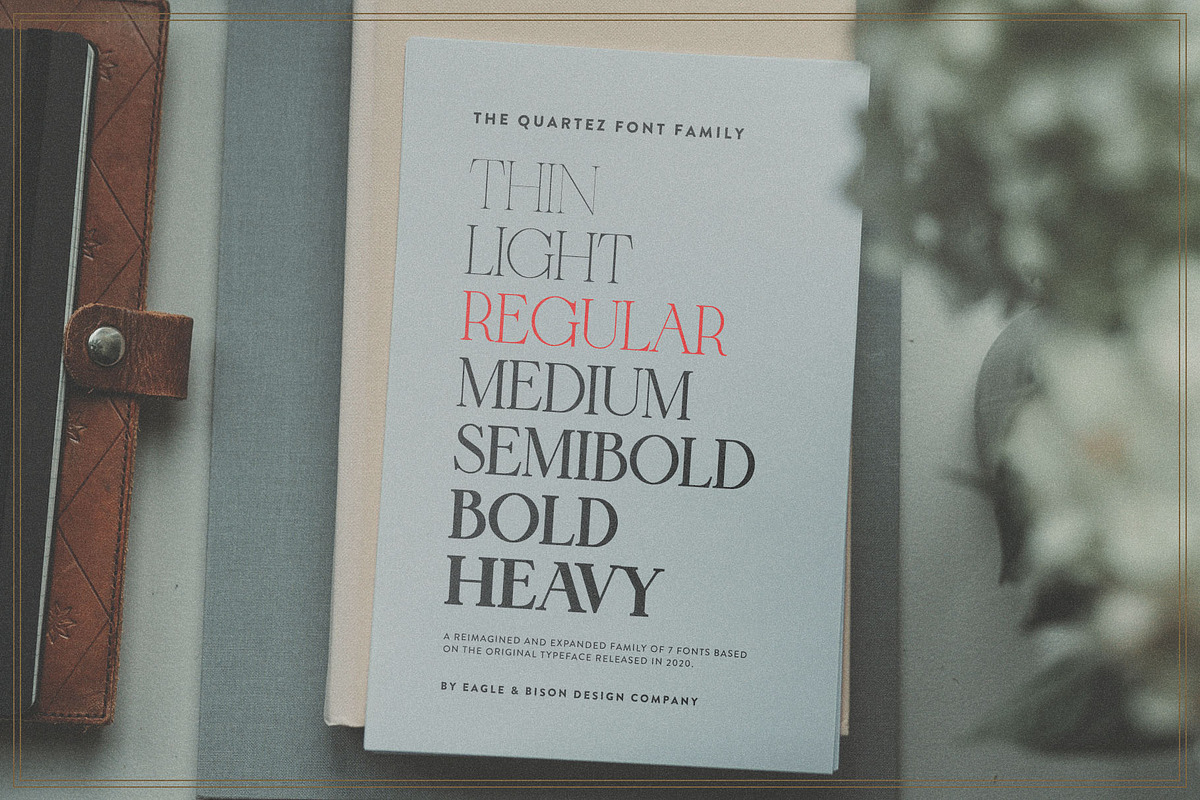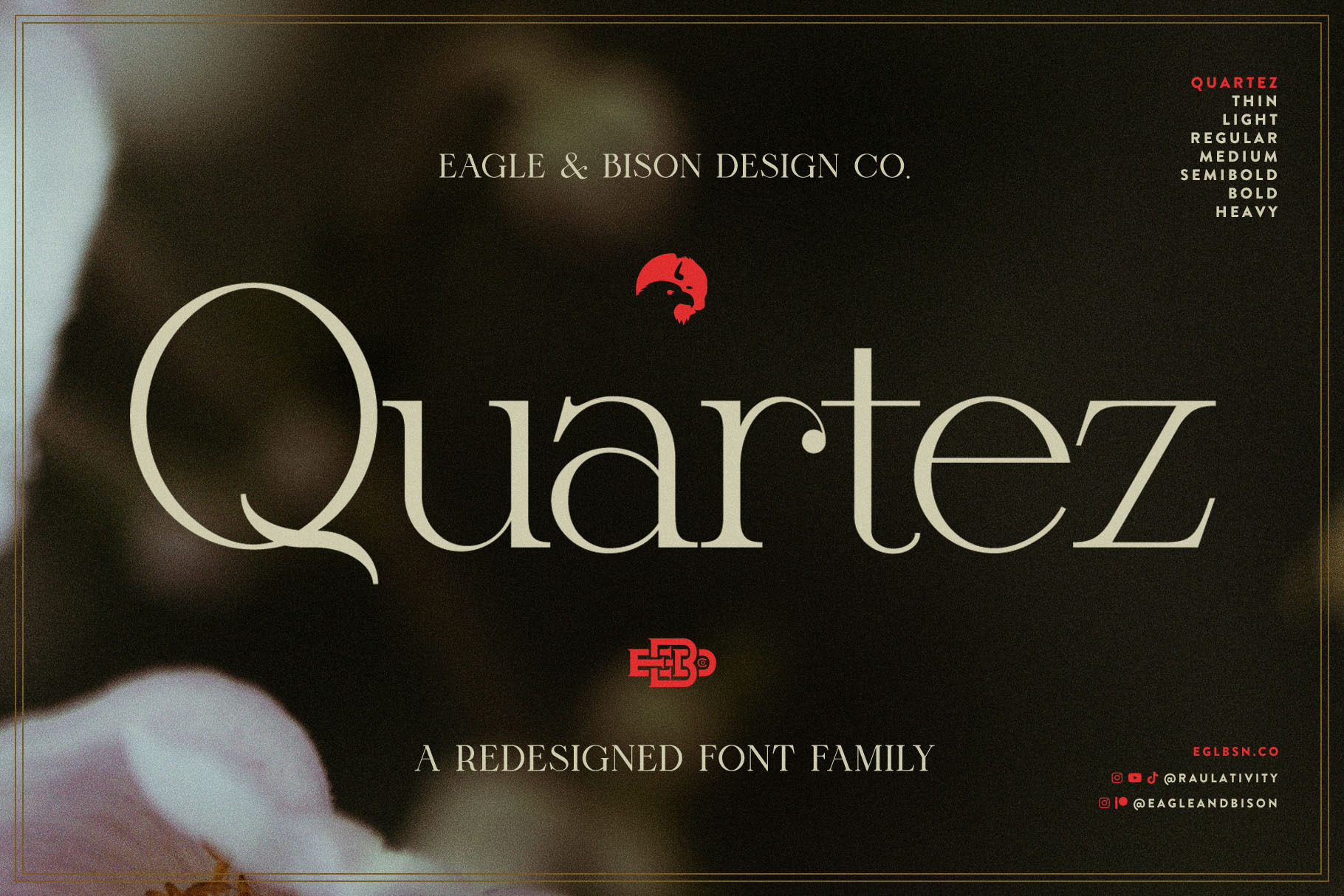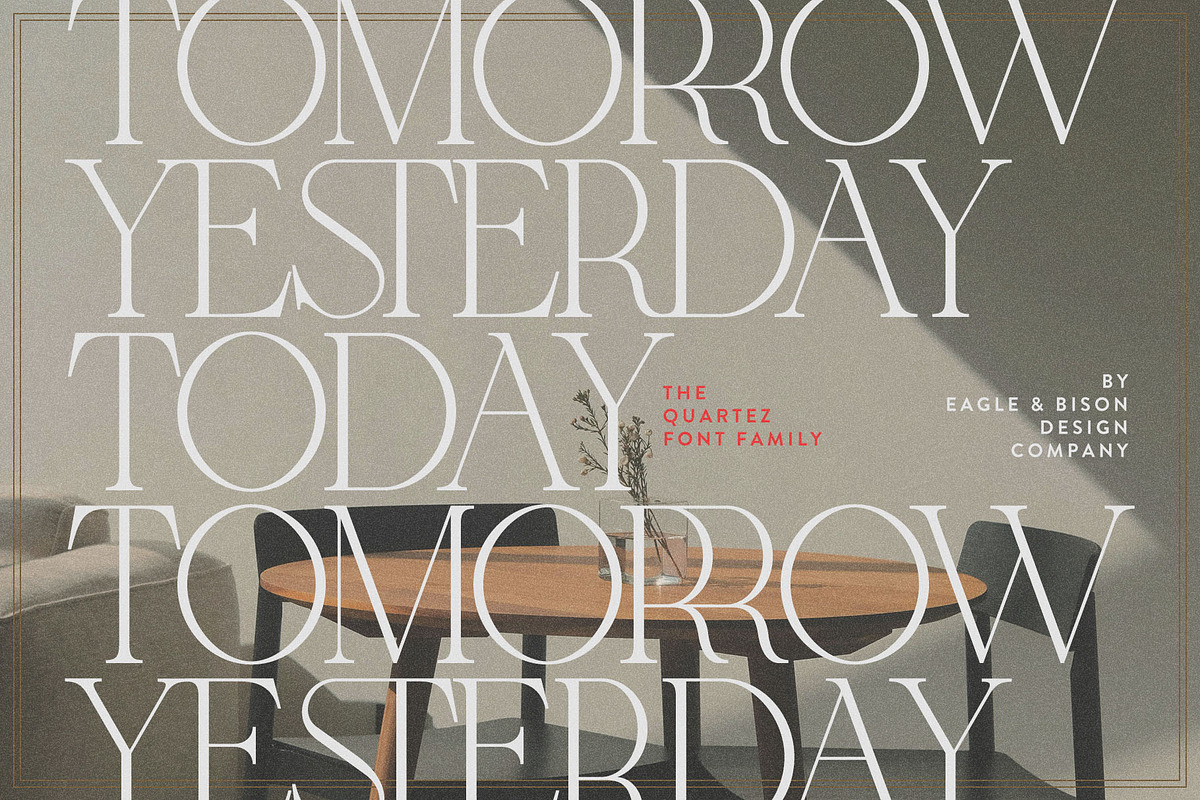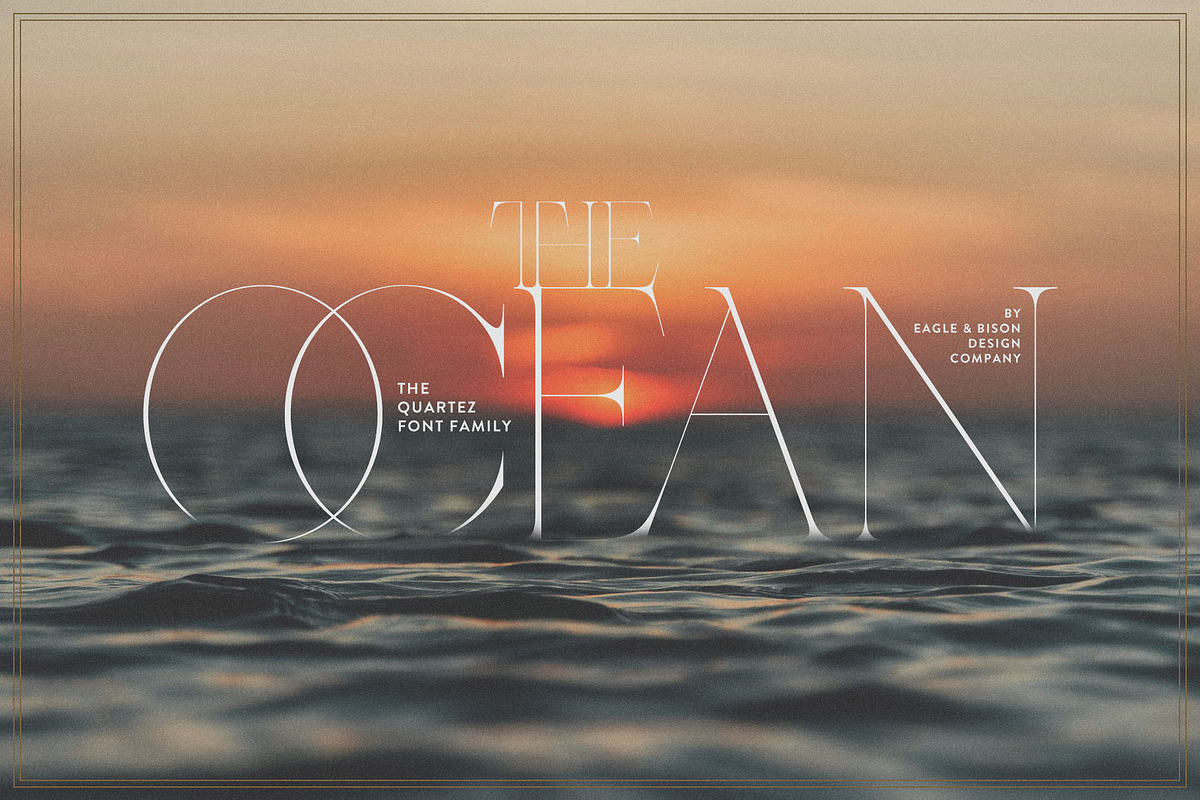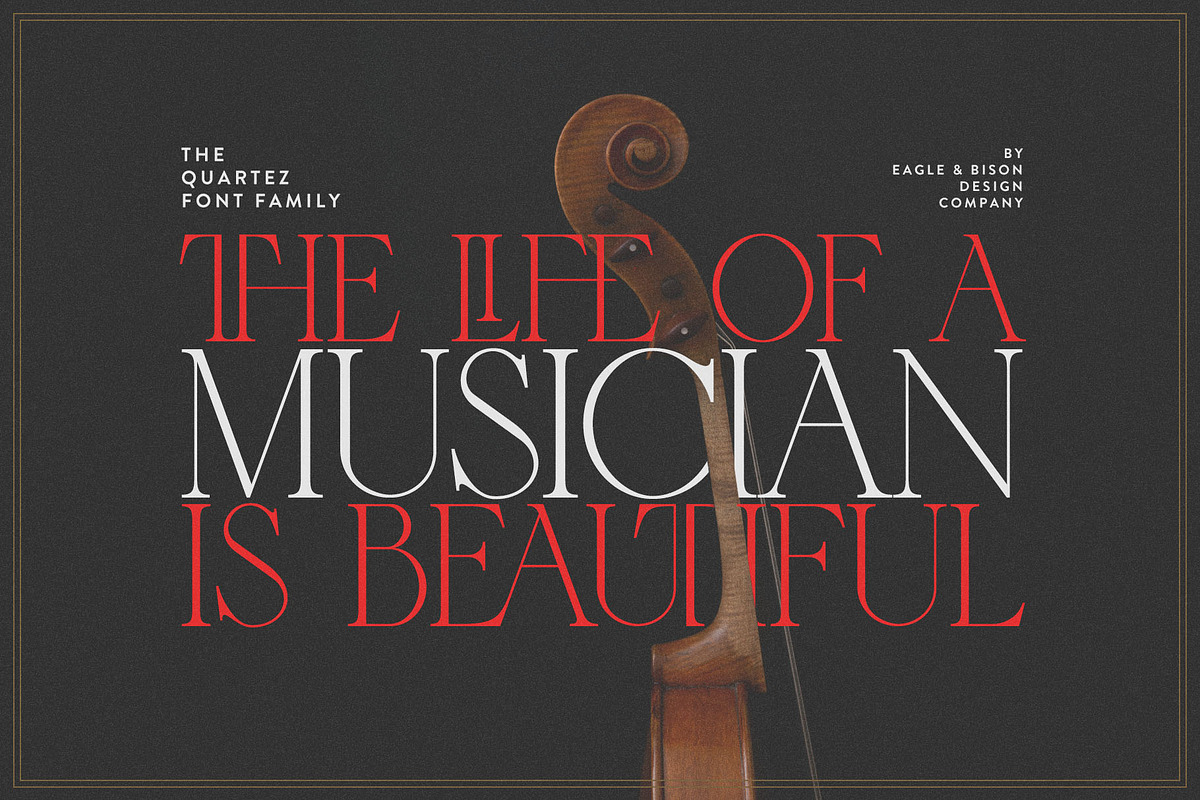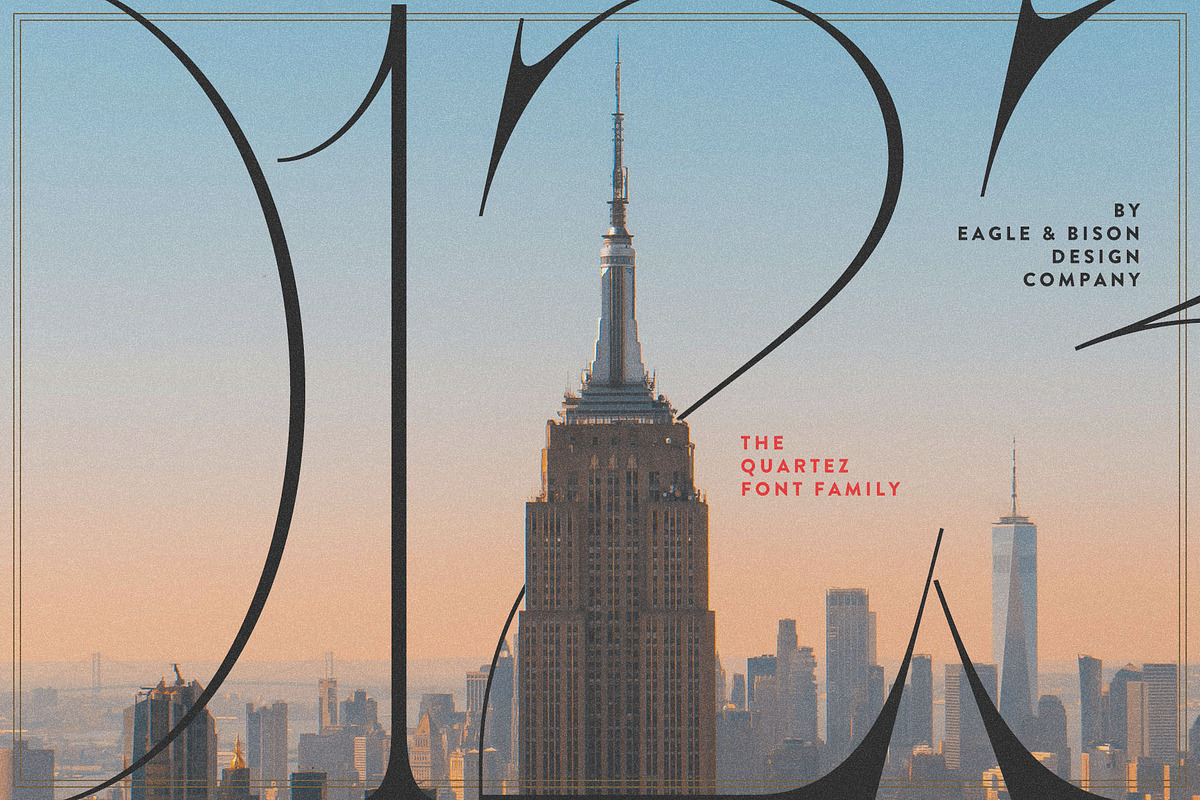
Quartez - A Redesigned Font Family
Quartez is a reimagined and expanded family of 7 fonts based on the original typeface released in 2020. Each character was carefully hand-crafted with elegance and legibility in mind. It also contains over 182 characters.
Quartez contains over 182 characters including:
Uppercase letters
Lowercase letters
Special characters
Standard Ligatures
Discretionary Ligatures